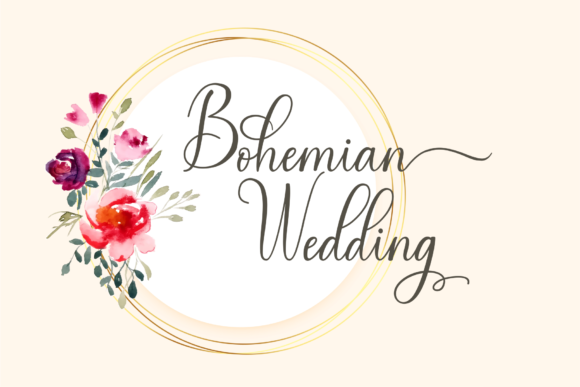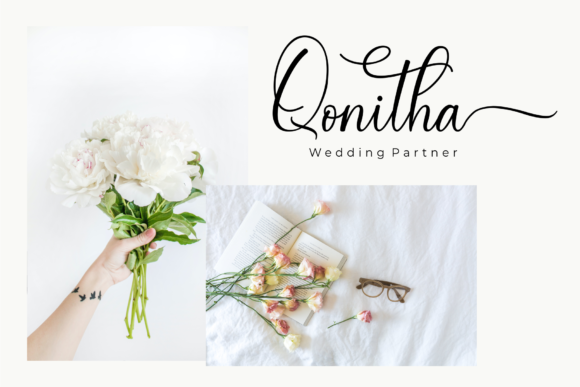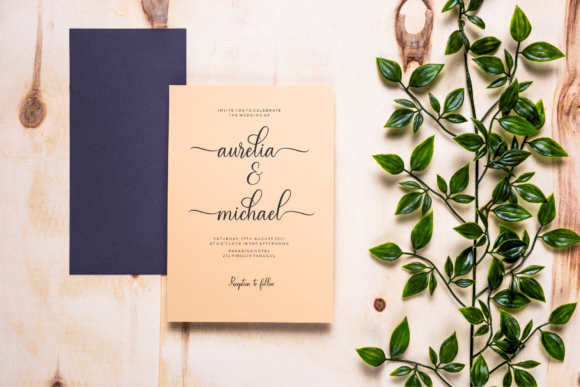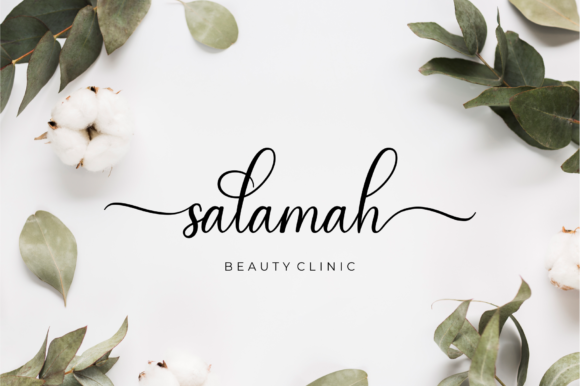
About Magnolia Font
Introducing Magnolia, an elegant and flowing handwritten font that exudes sophistication and grace. With its PUA encoding, you can access all the glyphs and swashes with ease, allowing you to create truly stunning and unique designs. Magnolia’s varying baseline, smooth lines, and gorgeous glyphs make it a versatile choice for a wide range of projects. It maintains its classy calligraphic influences while infusing a contemporary and fresh touch, making it a font that captivates and elevates your projects to the highest levels.
Magnolia’s elegant and flowing style creates an air of refinement and beauty. Each letter dances gracefully, as if penned by a master calligrapher. Whether you’re working on wedding invitations, branding materials, quotes, or any other creative endeavor, Magnolia brings a sense of timeless allure that leaves a lasting impression.
The font’s versatility knows no bounds. As you explore Magnolia, you’ll discover how seamlessly it complements various design projects. From luxurious branding to delicate stationery, and from social media graphics to editorial layouts, Magnolia’s elegant flow enhances your creations with its exquisite charm.
Imagine using Magnolia to craft enchanting wedding invitations. Its flowing script becomes a work of art, setting the tone for a truly memorable celebration.
For branding and logos that demand sophistication and elegance, Magnolia becomes a symbol of refined luxury. Its smooth lines and stunning alternates allow you to create a unique and memorable brand identity.
In the realm of social media, Magnolia adds a touch of grace and authenticity to your posts and graphics. It captures attention with its beauty, creating an emotional connection with your audience.
In editorial layouts and quotes, Magnolia’s flowing script conveys messages with finesse, making your content stand out with a touch of class.
In conclusion, Magnolia is more than just a font; it’s an embodiment of elegance and beauty. With its PUA encoding and unique style, Magnolia becomes an indispensable tool for all your design projects. Embrace the sophisticated allure of Magnolia and watch as your creations come alive with authenticity and grace. Let your imagination flourish in the elegant and flowing embrace of Magnolia, the handwritten font that defines timeless elegance and artistic brilliance.